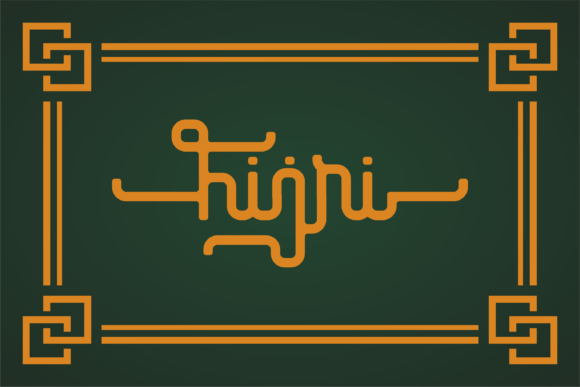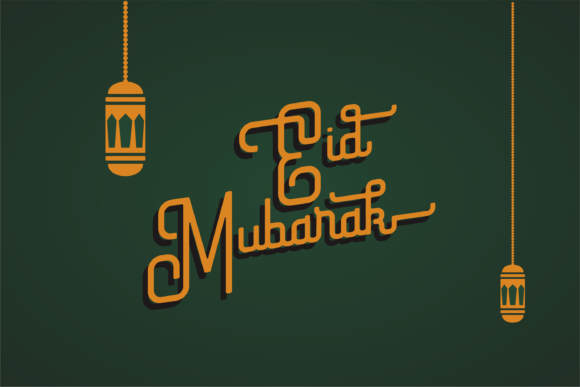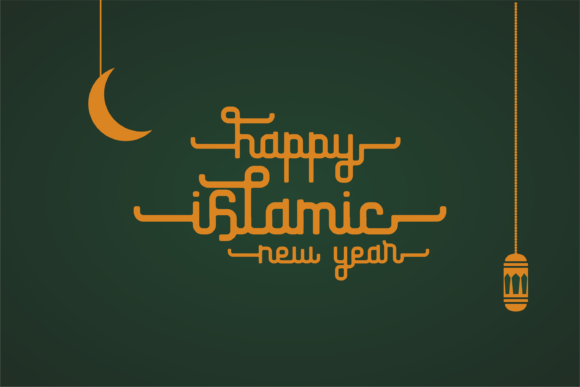
About Hijri Font
Hijri is a monoline script font with an Arabic style. It features beautiful swashes that makes your project stand out! Use it for greeting cards, invitations, posters, book covers, social media posts and much more!